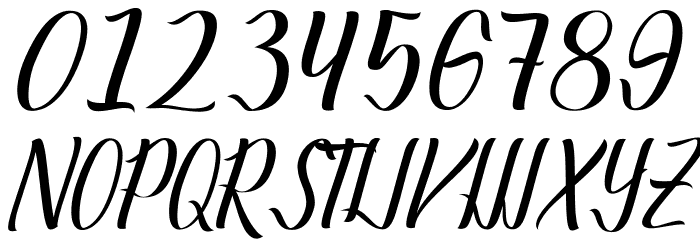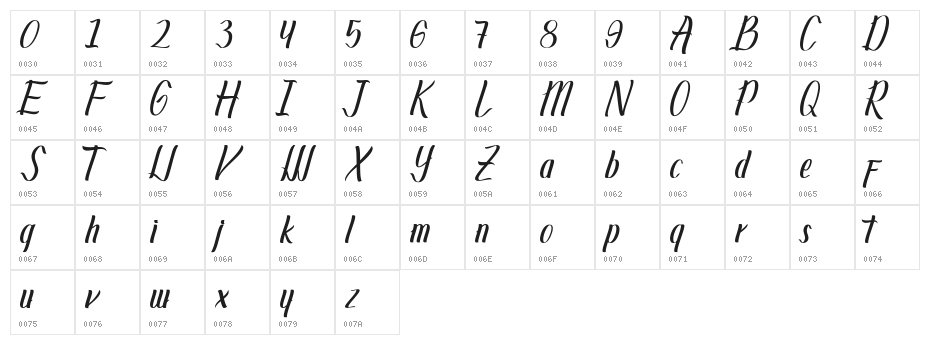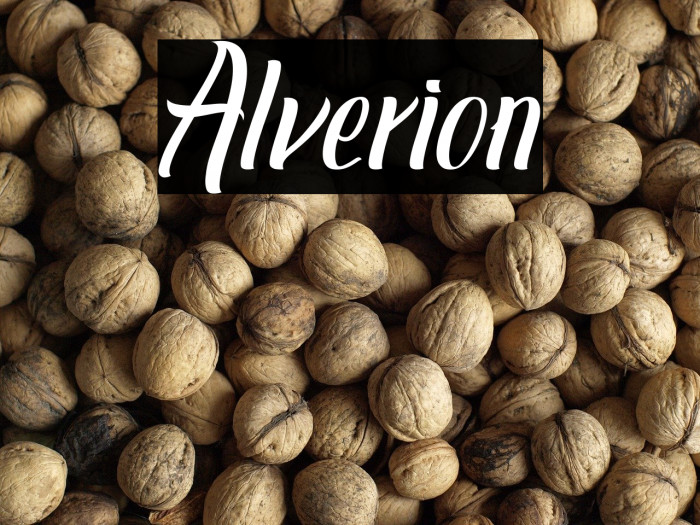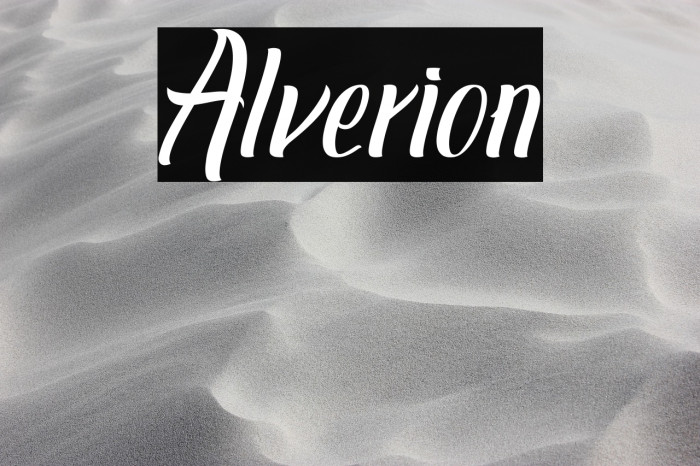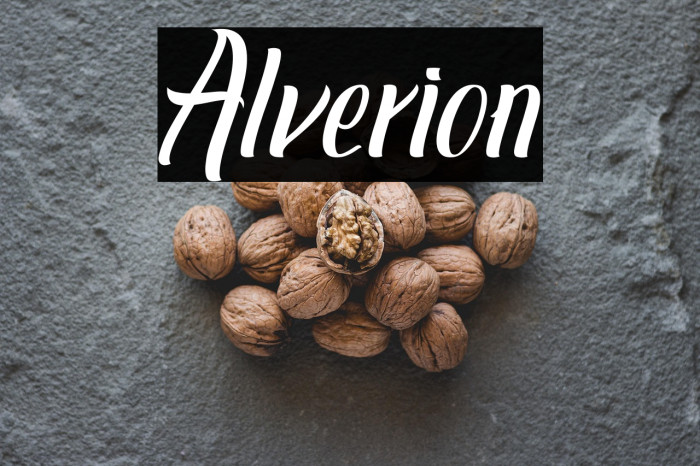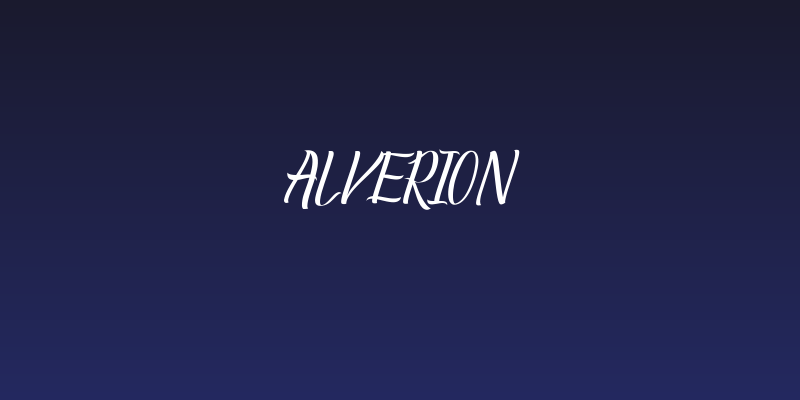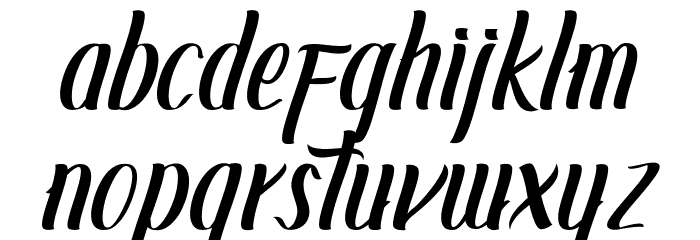
Alverion Font
Alverion Description
This font features a dynamic and flowing script style, characterized by its elegant curves and fluid strokes. The uppercase letters exhibit a sense of movement and grace, with elongated lines and subtle flourishes that add a touch of sophistication. The lowercase letters maintain a consistent rhythm, complementing the uppercase with their smooth, connected forms. The numerals are designed with a similar flair, ensuring readability while maintaining the overall aesthetic. This font's unique style makes it ideal for creative and expressive projects, where a personal touch is desired.
| Proposed Projects | Ideal for wedding invitations, greeting cards, branding, and artistic projects. |